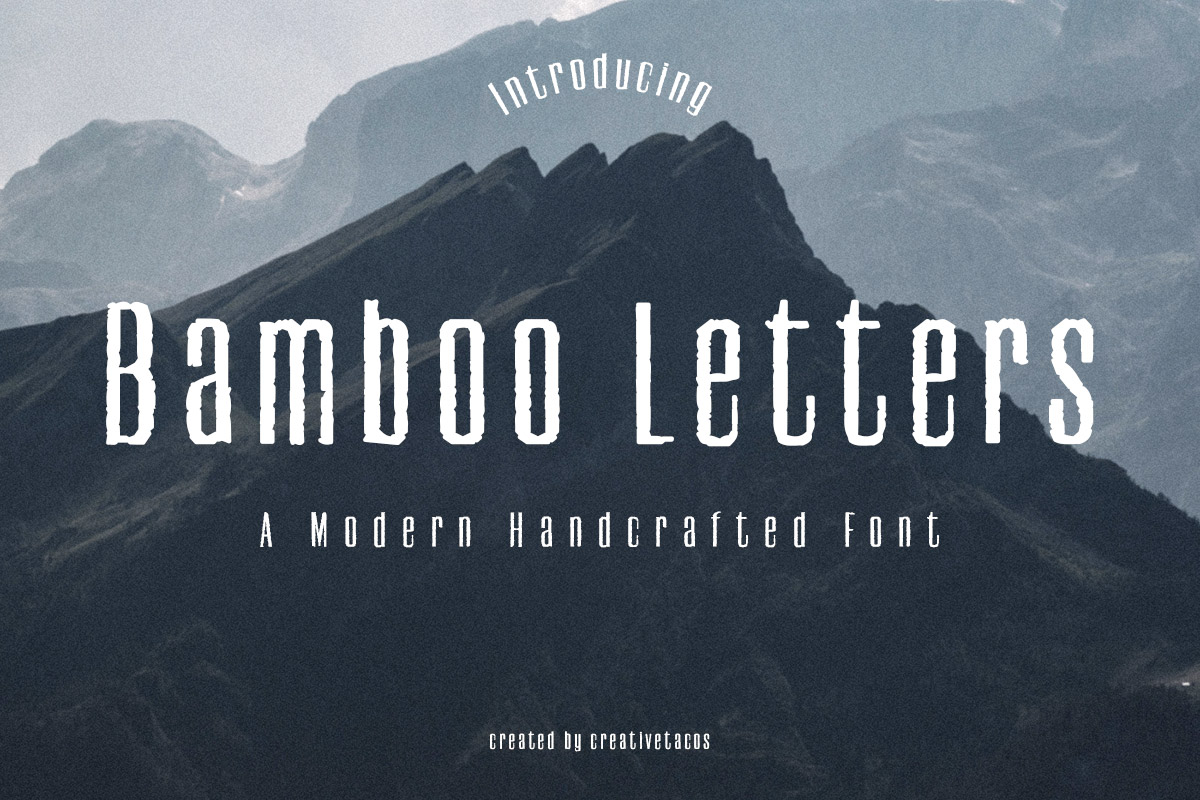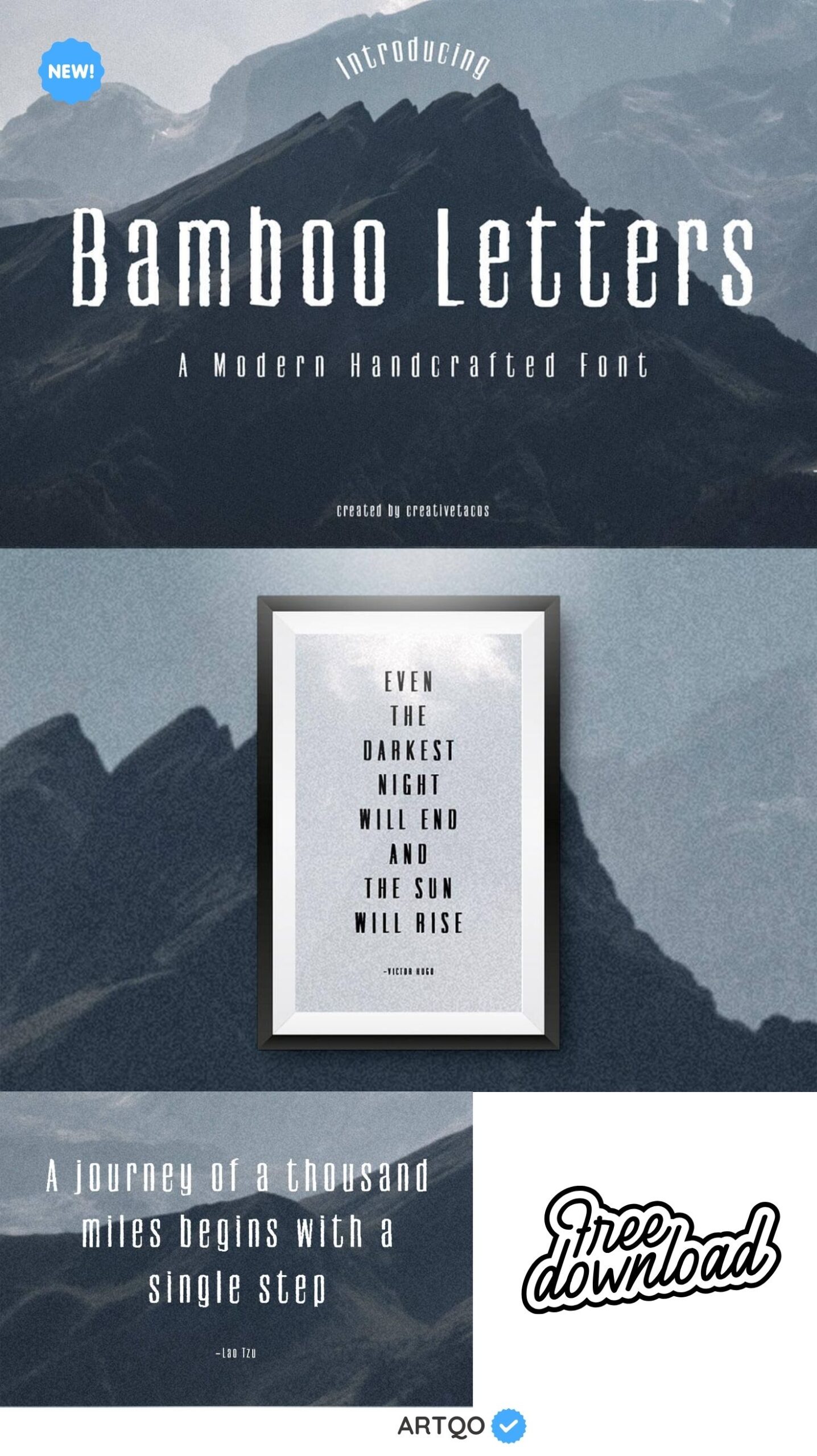
Bamboo Letters Handmade Font
Bamboo Letters Handmade Font is a rough, modern and sophisticated font with careful attention to detail made to you for your upcoming projects.
It contains uppercase and number only. This font looks very awesome for wedding, feminine branding, social media, card, logos, web, branding, stationery, advertisements, product packaging, label, photography, watermark, special events, handmade notes, or just adding a professional touch to any projects!